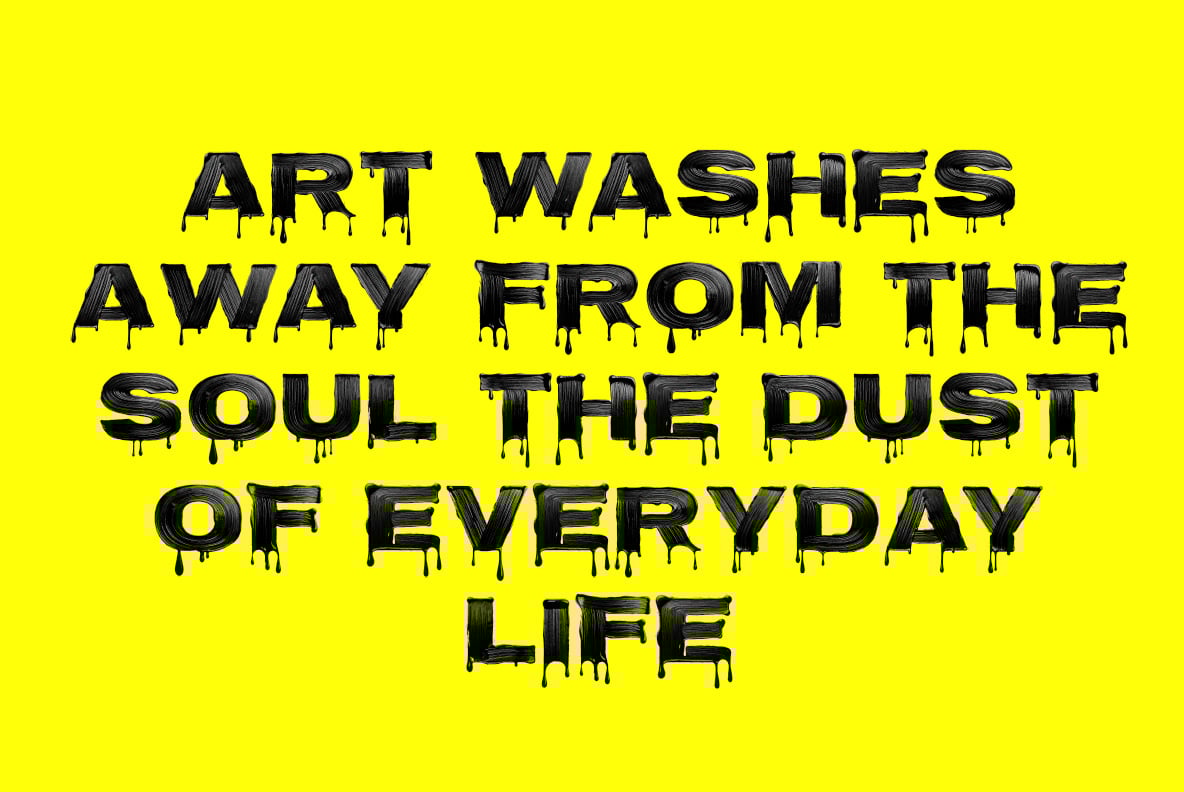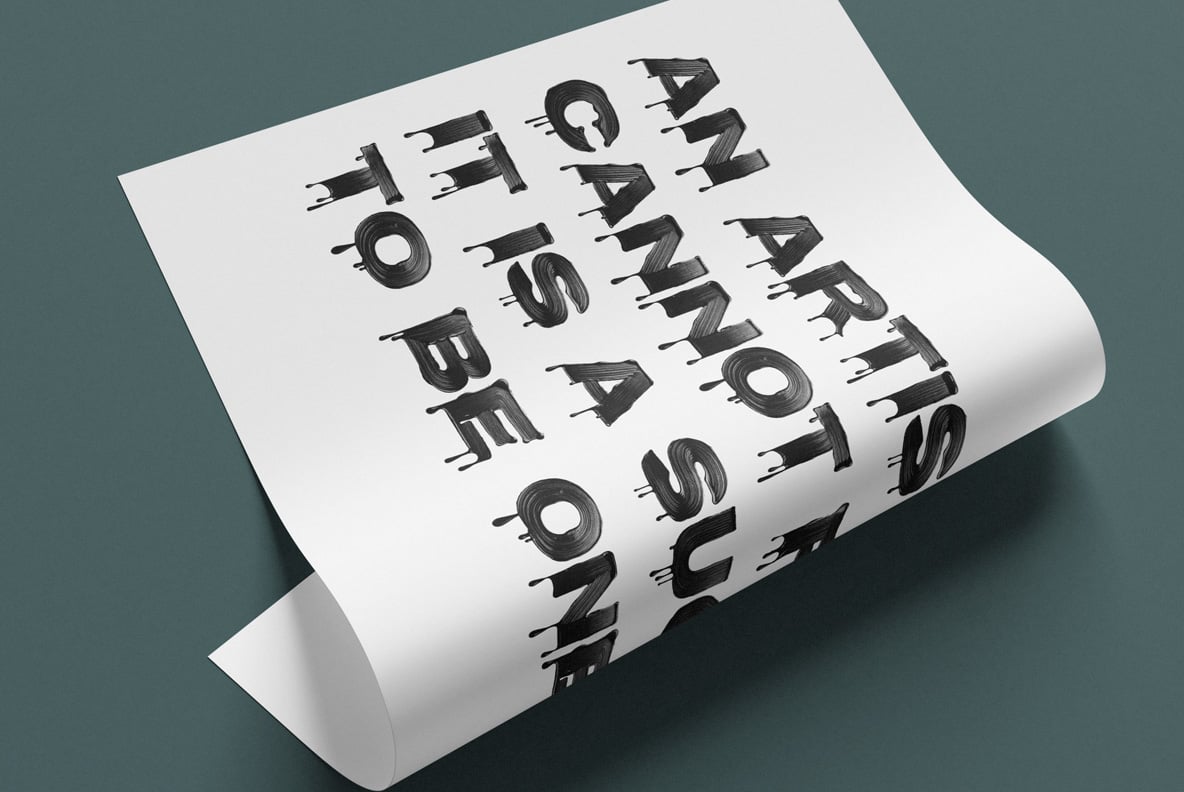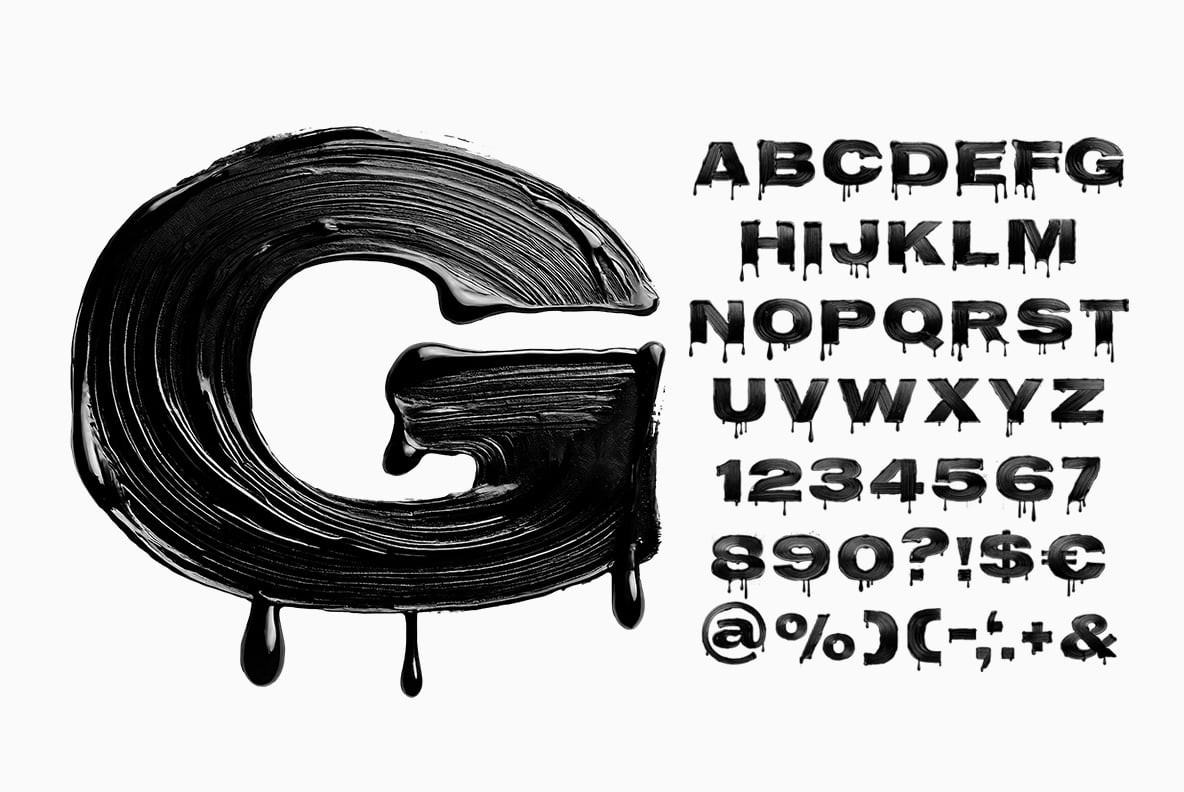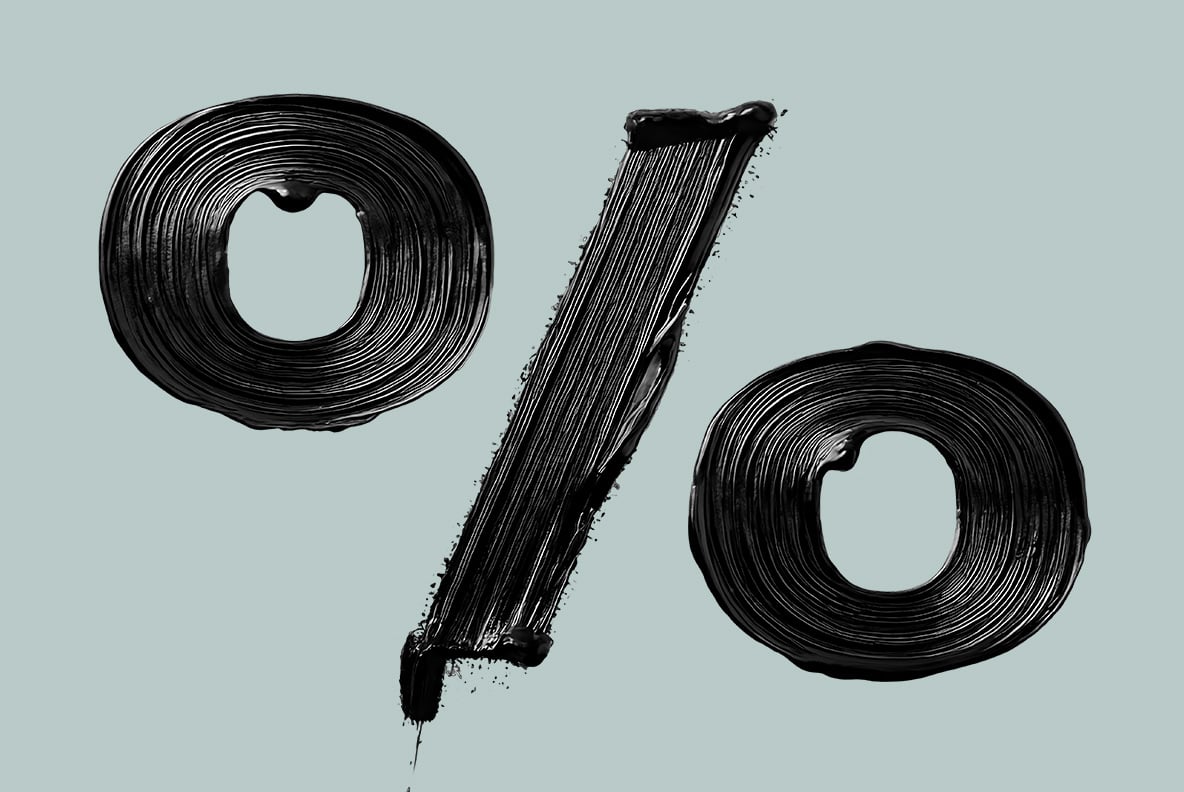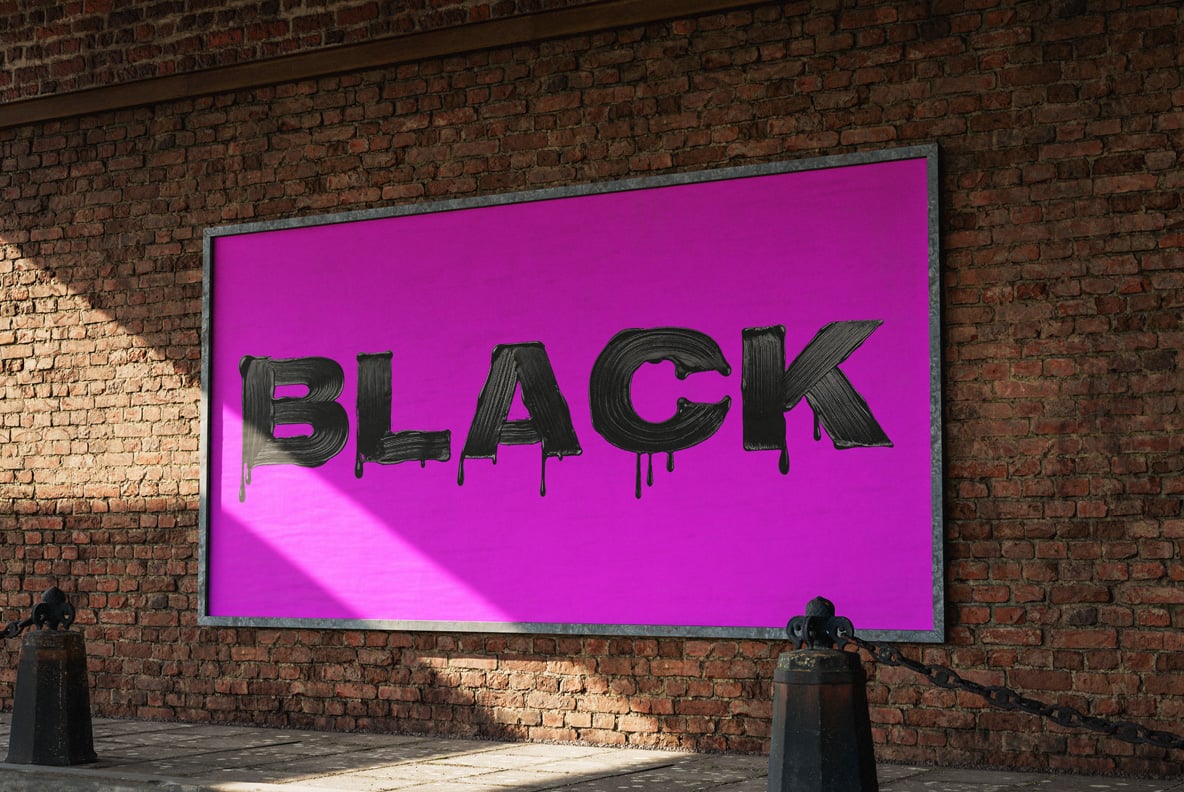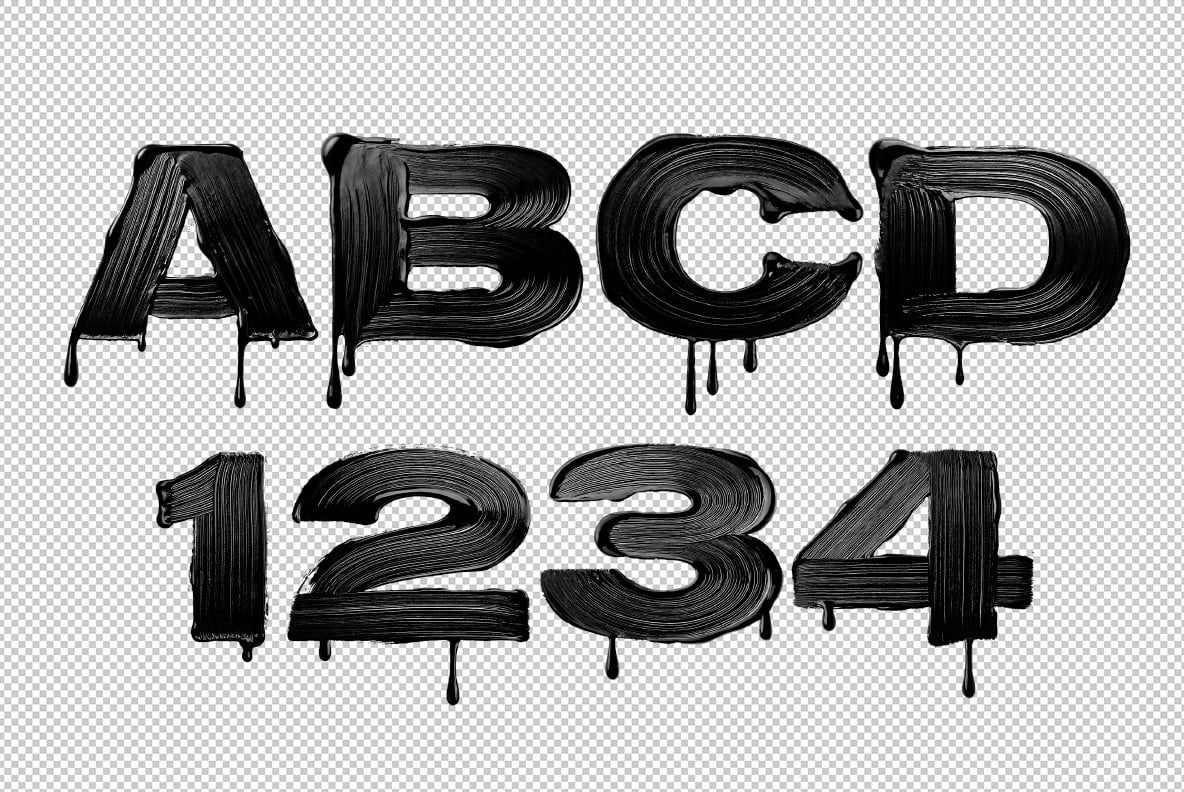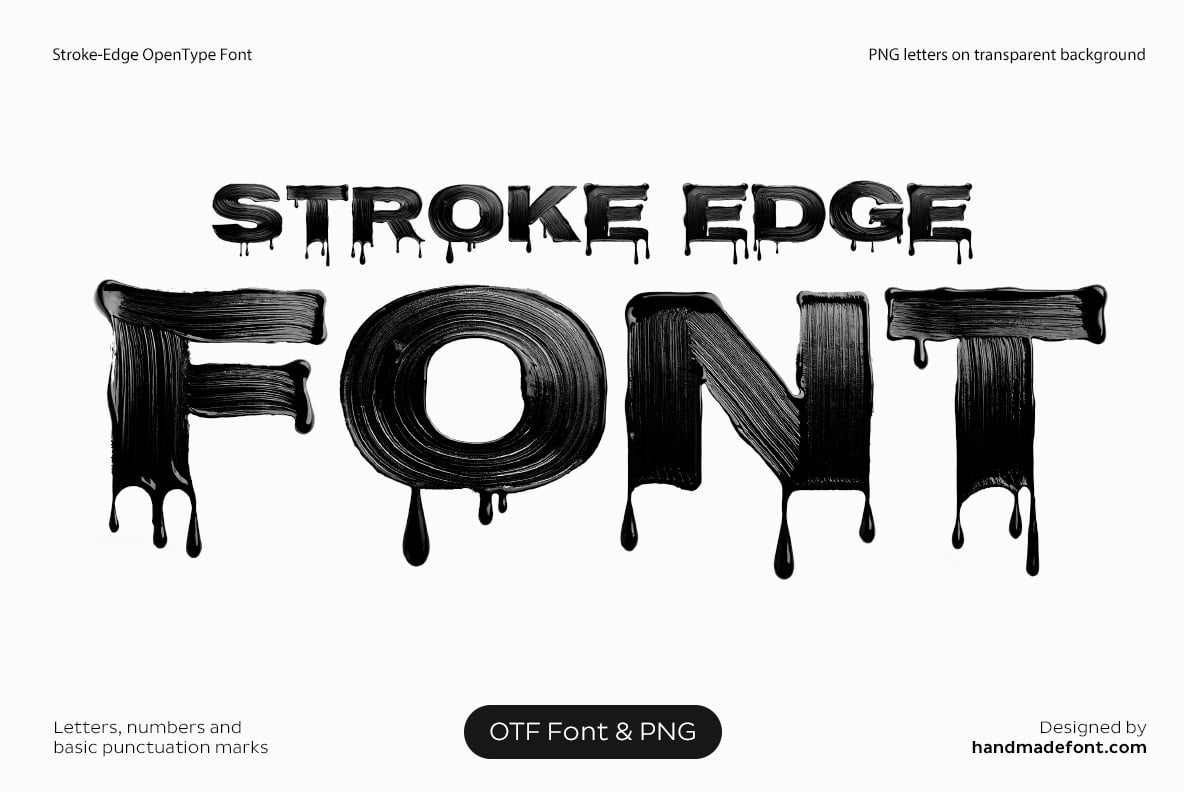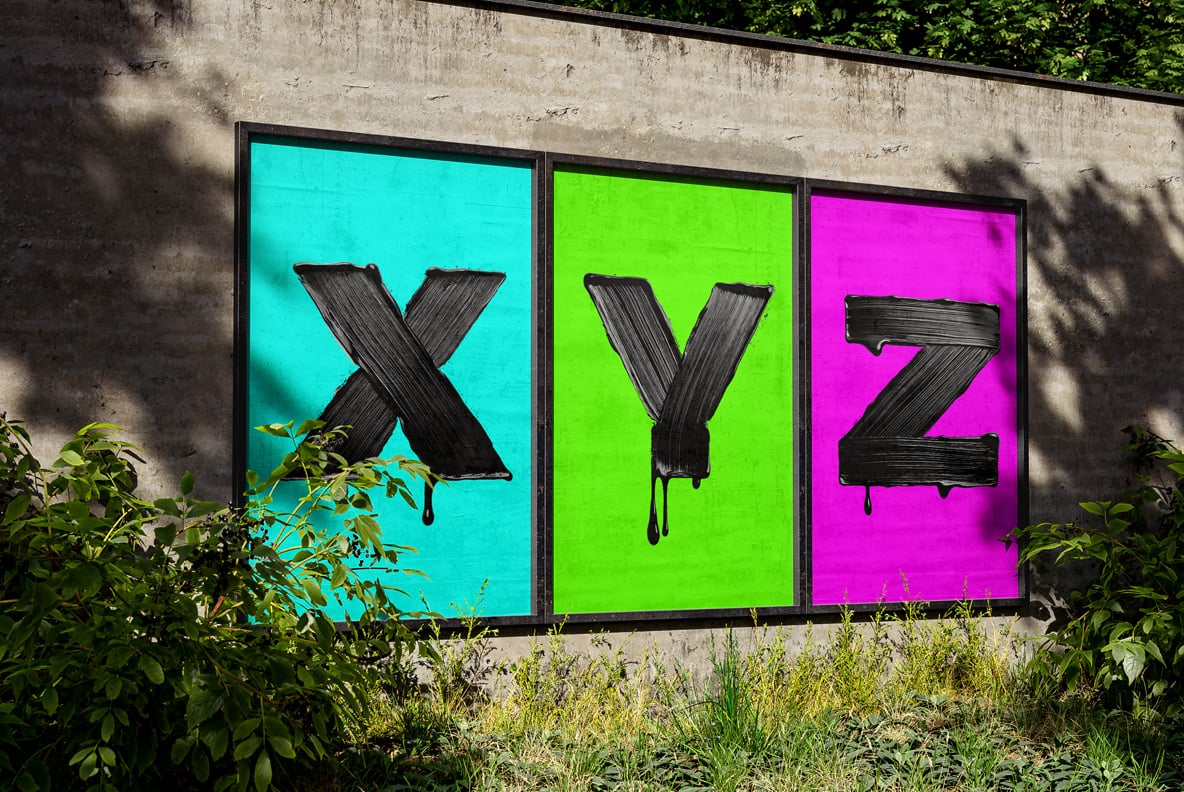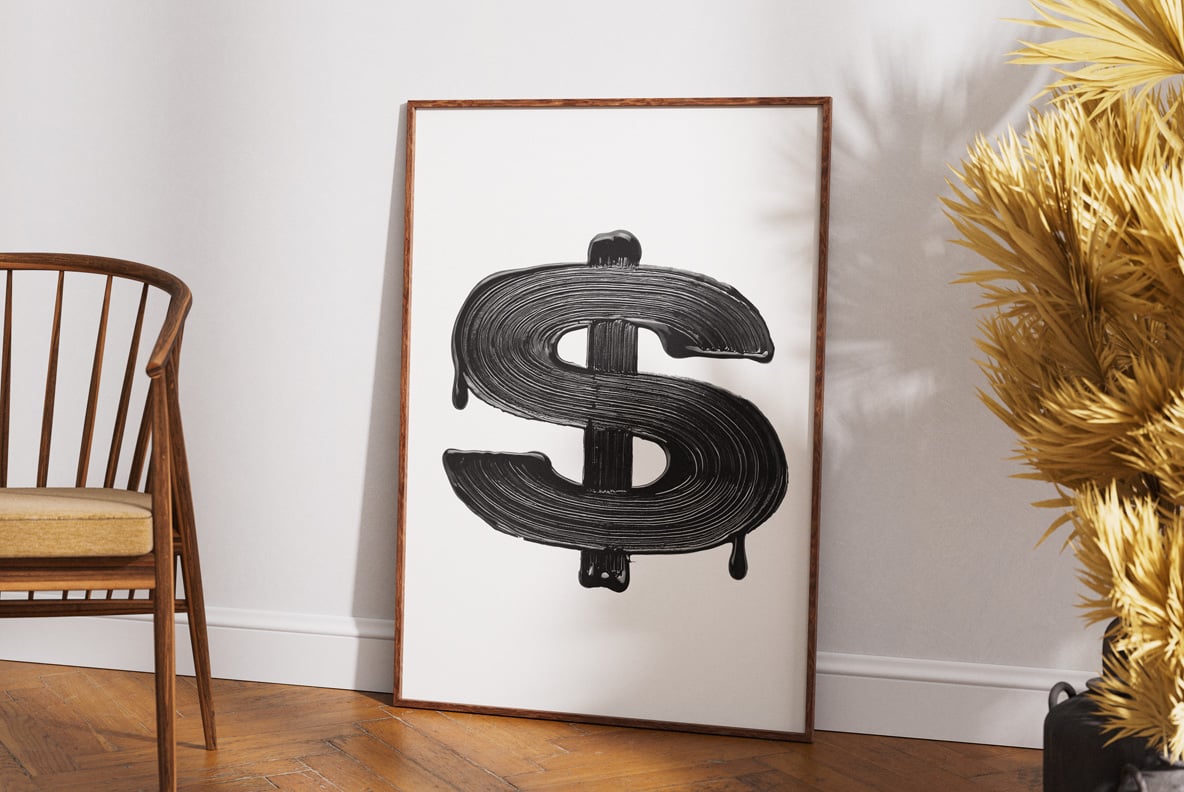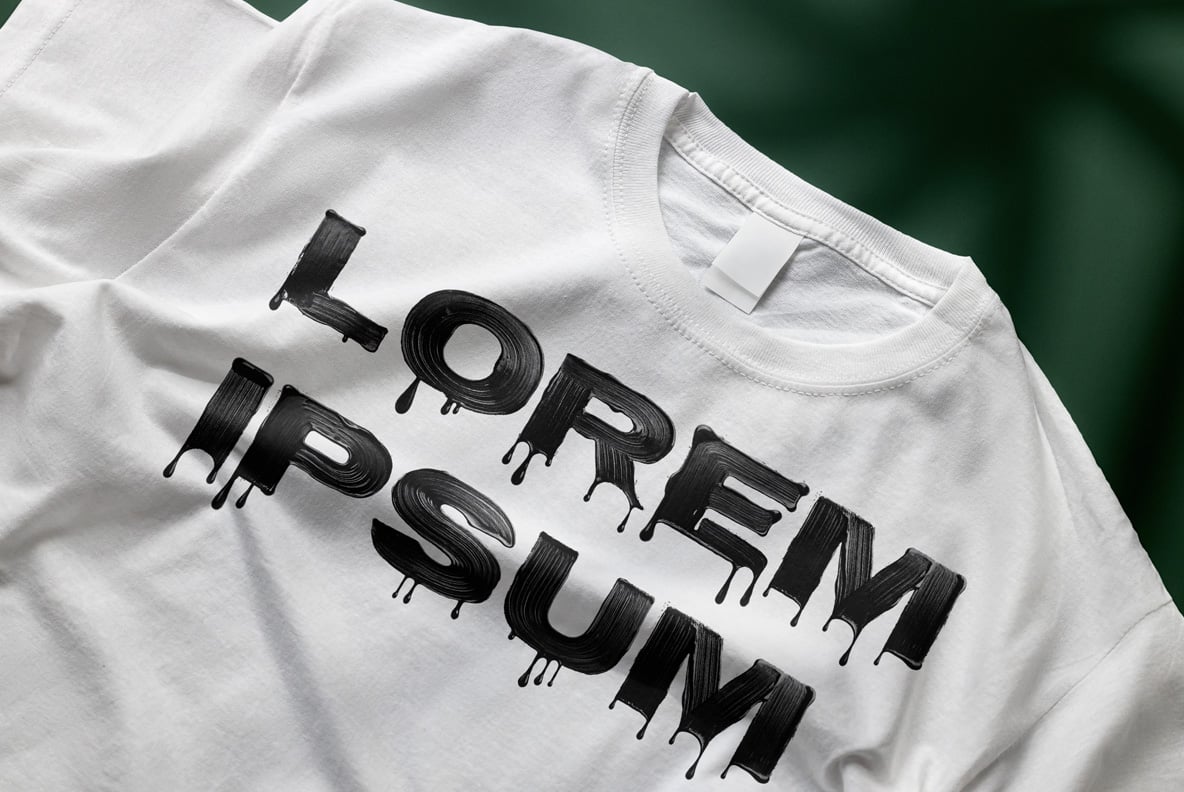
Stroke Edge Font
Stroke Edge Font is a bold, artistic typeface inspired by black paint strokes. Each letter mimics the dynamic texture of brush strokes, adding a raw, creative edge to your designs. Perfect for projects needing a handcrafted, expressive touch, this font is ideal for posters, logos, social media, and creative branding. Its unique blend of sharp edges and fluid motion makes it a standout choice for artistic expression.